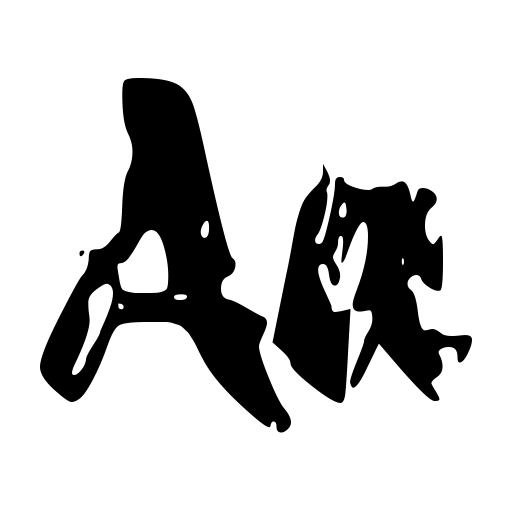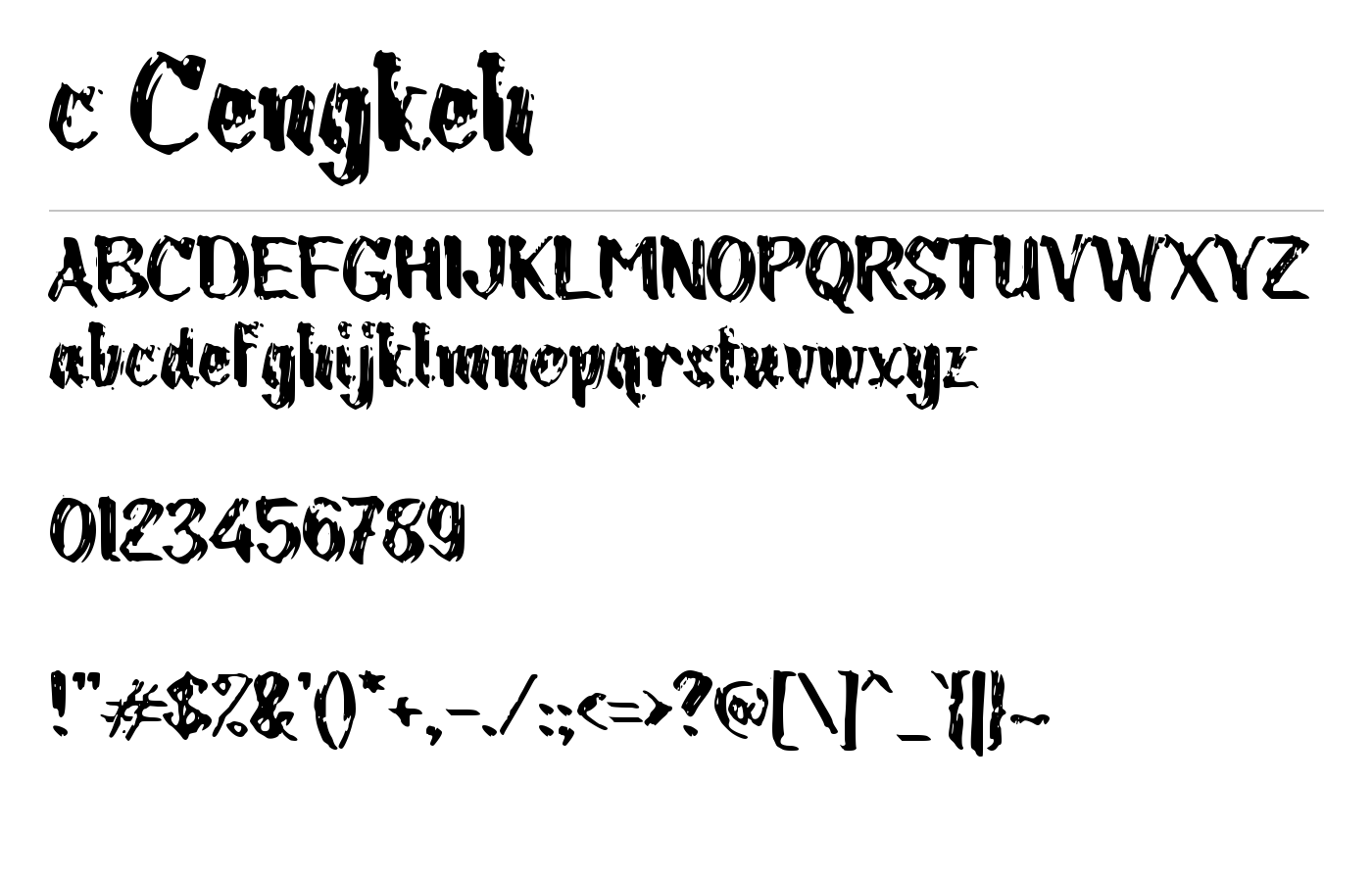
Cengkeh is a distressed, decorative serif font with rough, textured edges that create a rugged, hand-crafted feel. It features medium weight and normal width, with irregular strokes and a slightly condensed appearance, making it ideal for eye-catching headlines or creative projects that need a vintage or grunge aesthetic. This font works well for posters, logos, and packaging where a bold, unique personality is desired.
c Cengkeh Font
About c Cengkeh Font